If you’re working on a child-focused design, whether it’s a playful website, a colorful book cover, toy packaging, or an educational app, having the right fonts is crucial. The typography you choose can instantly make your project engaging, fun, and approachable for children and parents alike. That’s why we’ve curated a collection of the cutest and most creative free kids’ fonts, designed to add playfulness, personality, and imagination to any project.
This selection includes handwritten fonts, whimsical scripts, cartoon-inspired typefaces, and bold, playful lettering. Each font is chosen for its readability, charm, and versatility, making it ideal for both print and digital design. Whether you’re creating a storybook, educational materials, website graphics, or app interfaces, these fonts will bring your child-friendly project to life with color, warmth, and a cheerful vibe.
✨ Why these kid-friendly fonts are essential for designers:
- Variety of playful styles — from cute handwriting to fun cartoon lettering, perfect for logos, posters, invitations, and packaging.
- Boosts engagement — the right font can capture a child’s attention, making learning and interaction more enjoyable.
- Creative flexibility — suitable for both educational and entertainment projects, adding a friendly and approachable look.
By incorporating these kid-friendly fonts, designers can create projects that are visually appealing, fun, and easy to read, while also conveying a sense of joy and creativity. These fonts are perfect for children’s apps, books, websites, toy branding, and school projects, ensuring that your designs stand out and leave a positive impression.
1. Twiddlestix
2. Typo Comics
3. Wonderbar
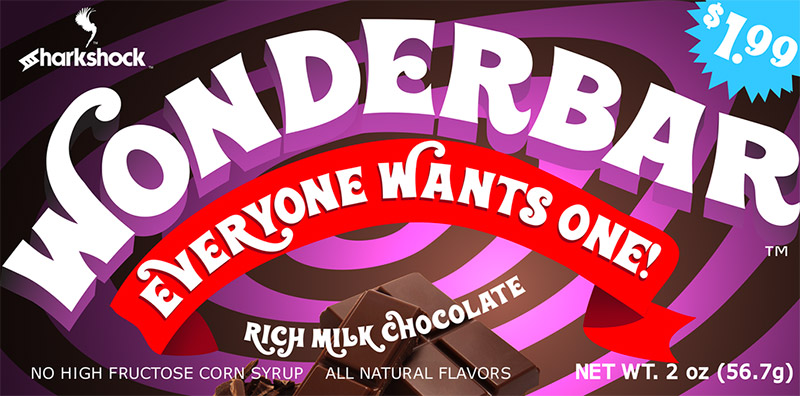
4. Makes You Stronger
5. Miss Olsen’s Classroom
6. Attack of the Robots
7. Giraffenhals
8. Lego House
9. Kranky
10. Senang Banyol
11. Primary Whimsy
12. Behind These Hazel Eyes
13. Irish Grover
14. Princess Sofia
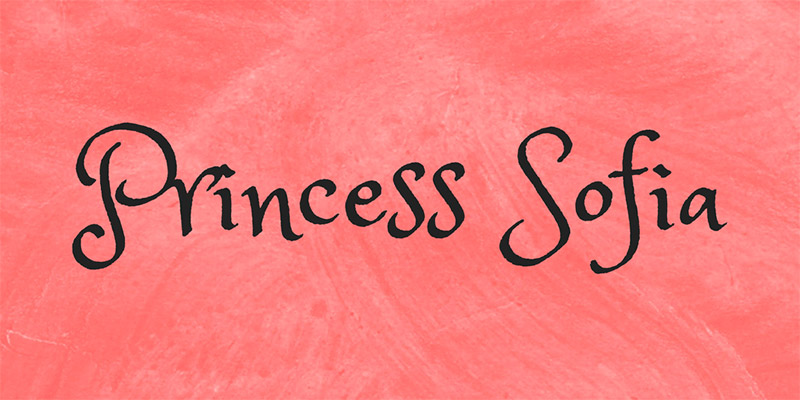
15. Hangyaboly
16. Grinched 2.0
17. Super Seven
18. Green Eggs and Spam
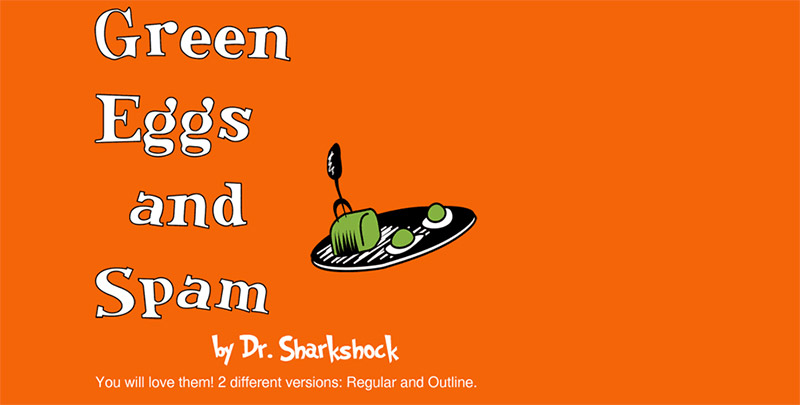
19. Cronus
20. Chicle
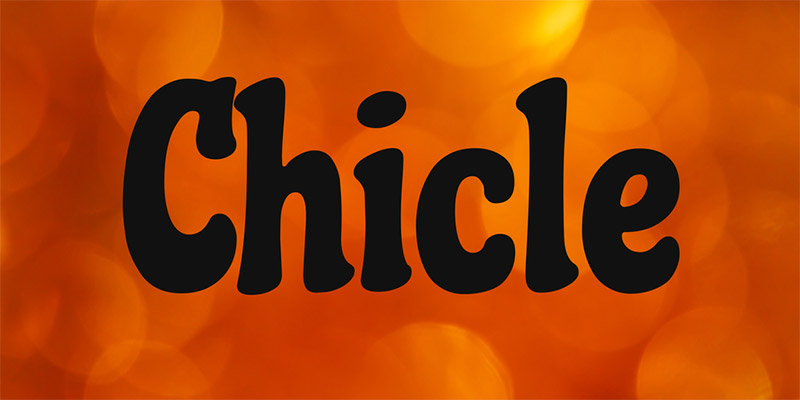
21. Wicked Mouse